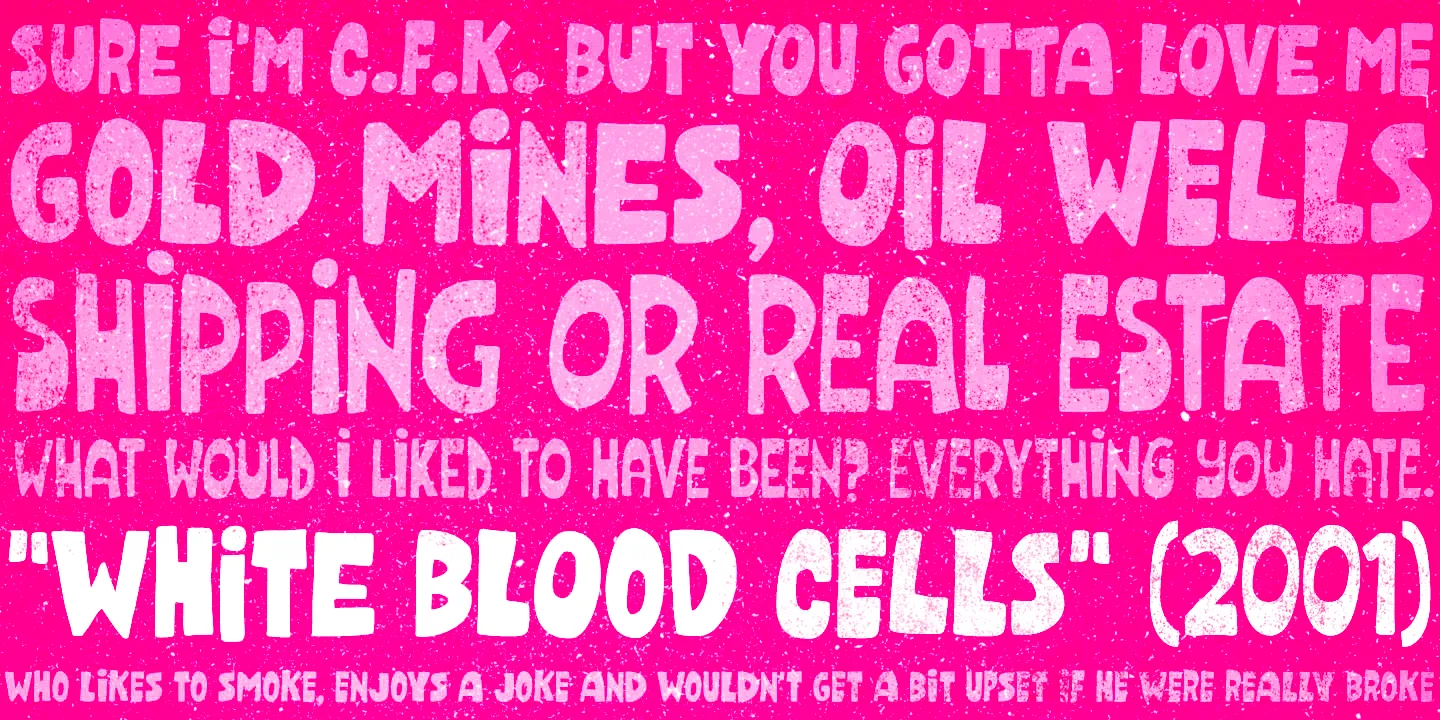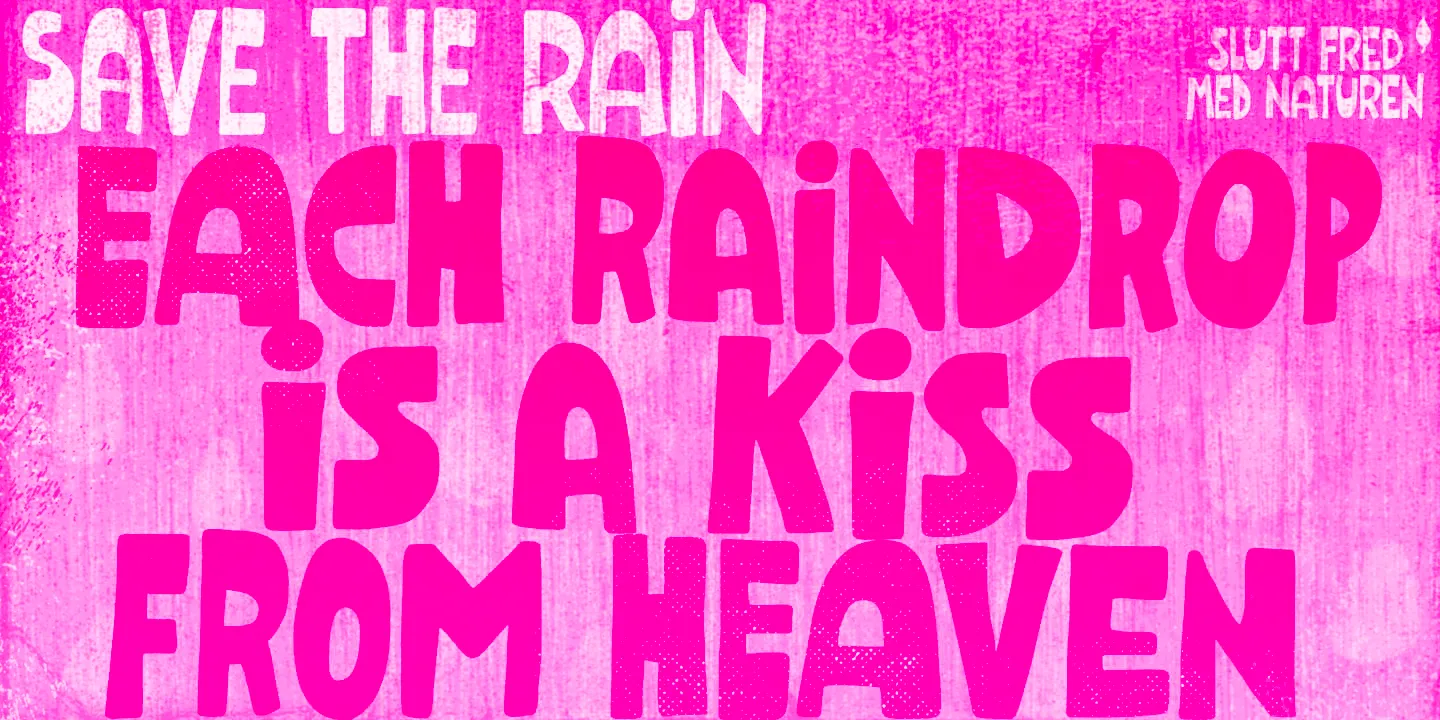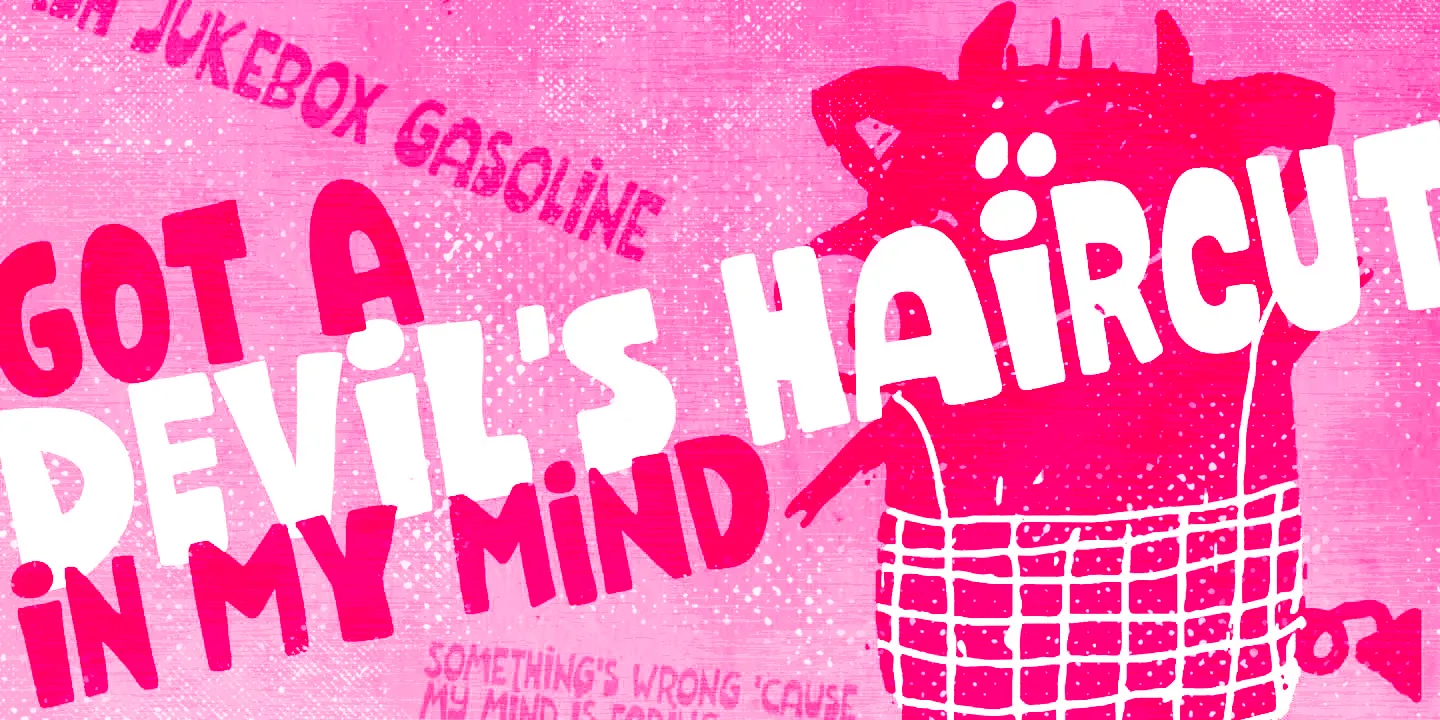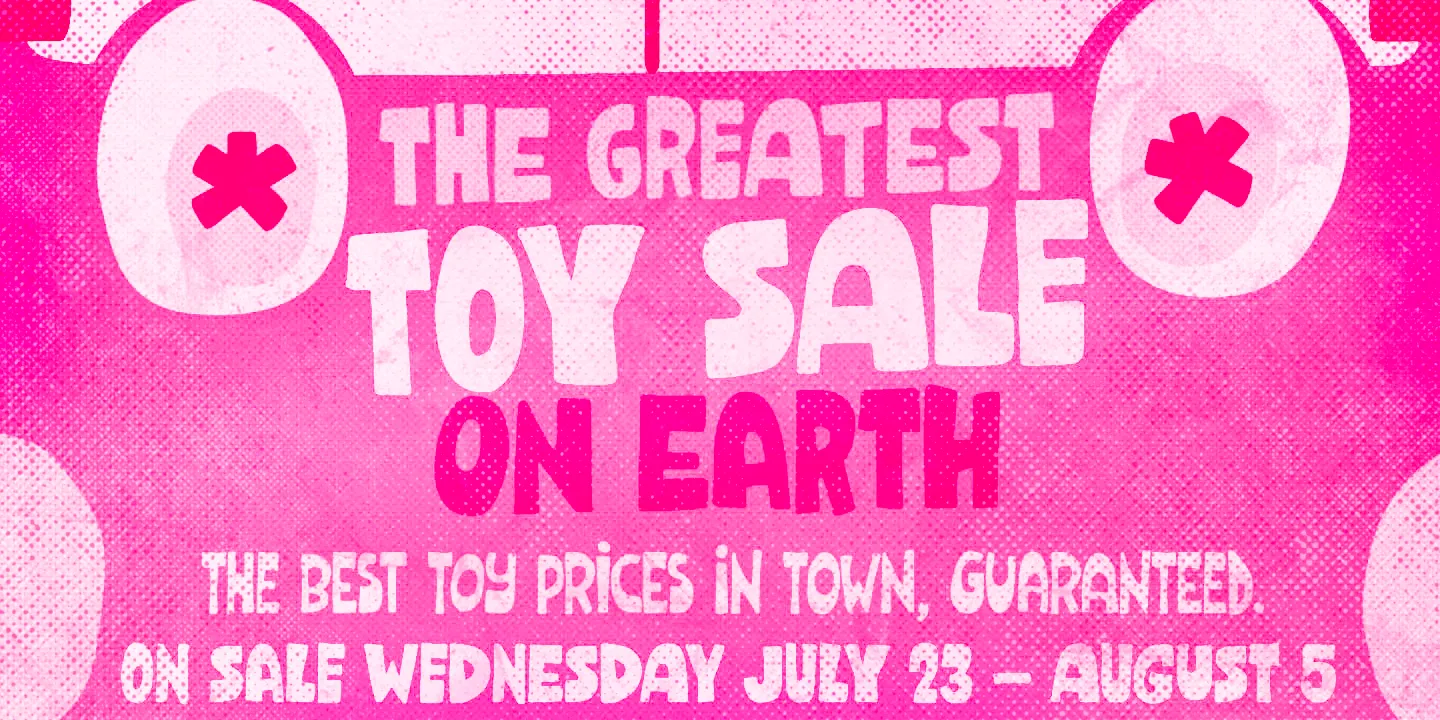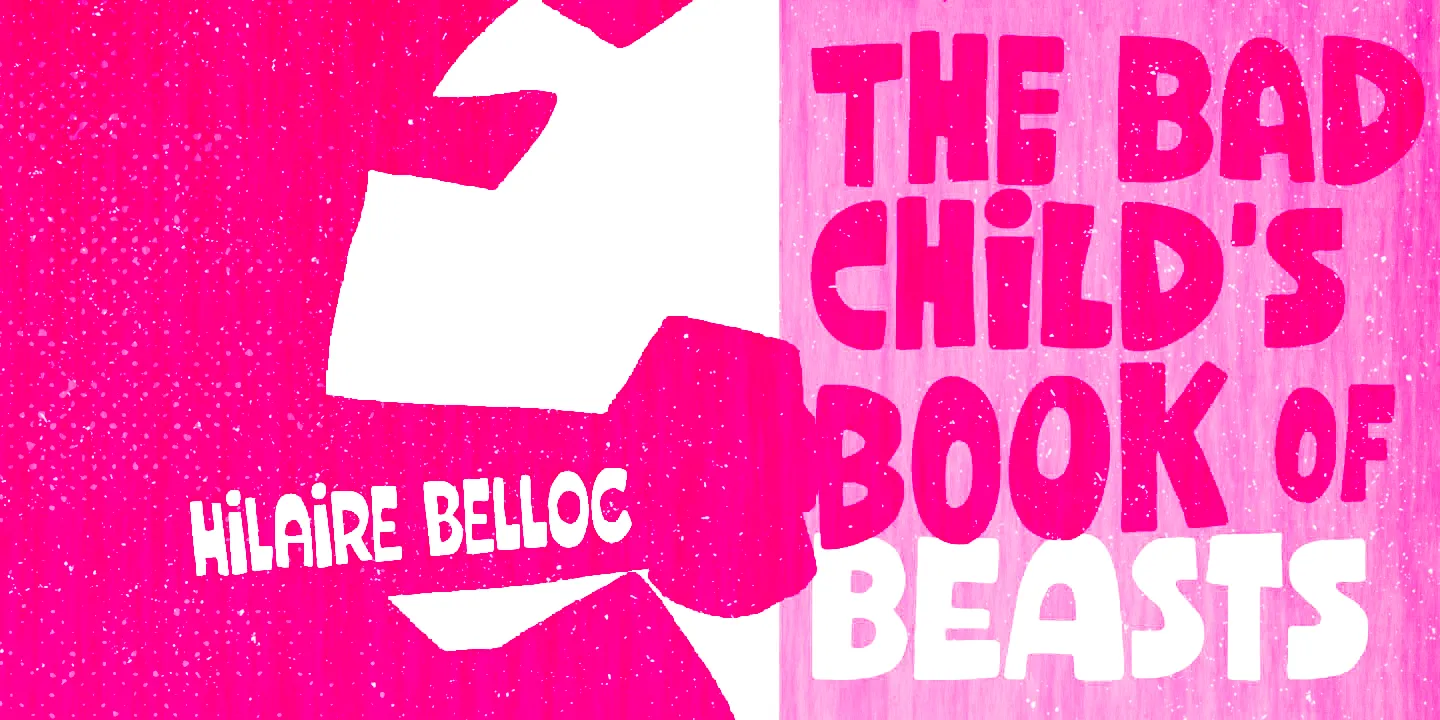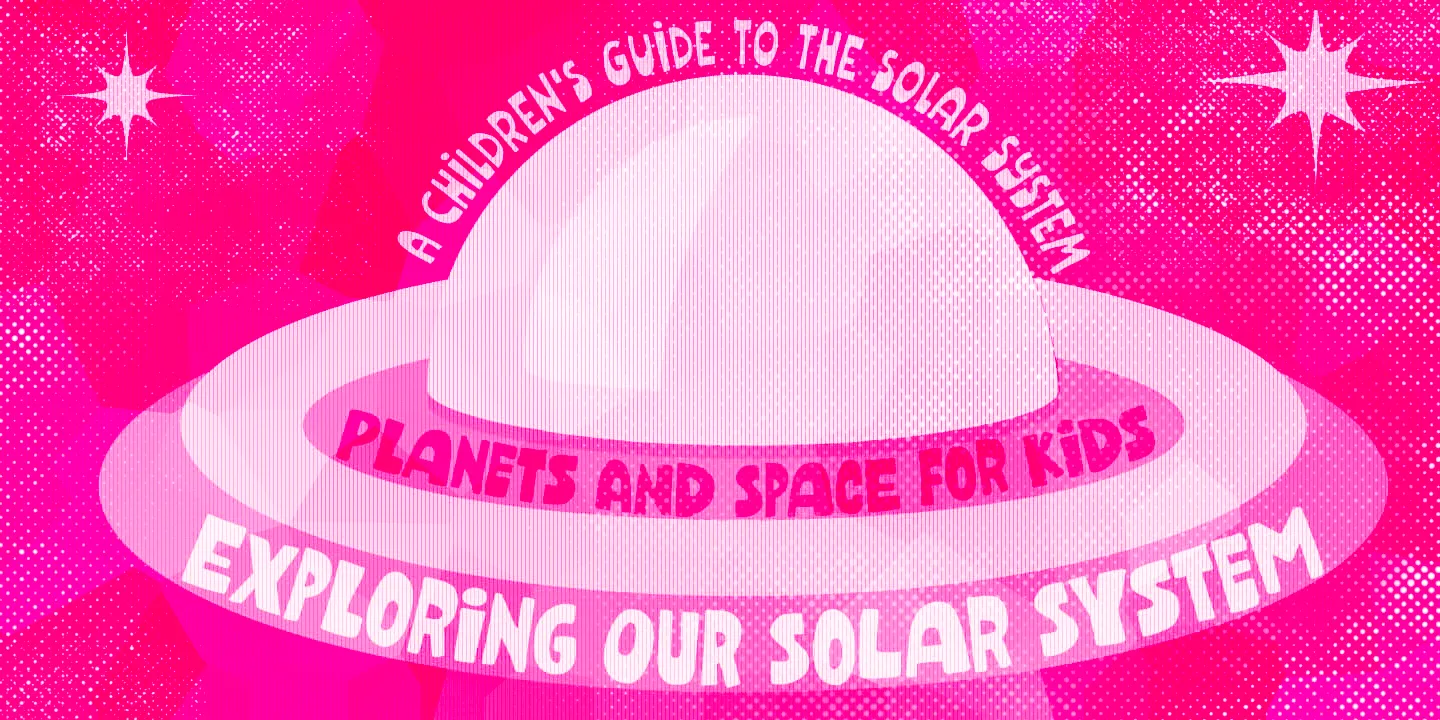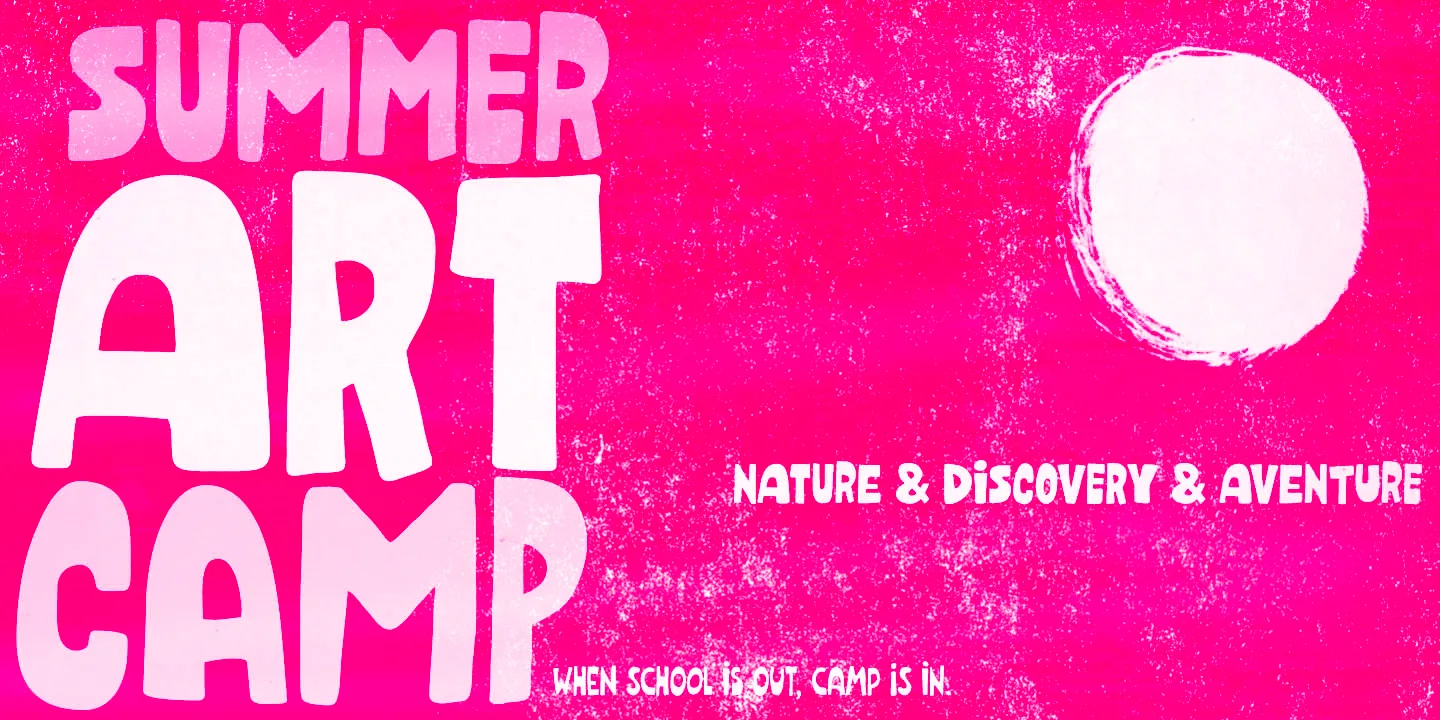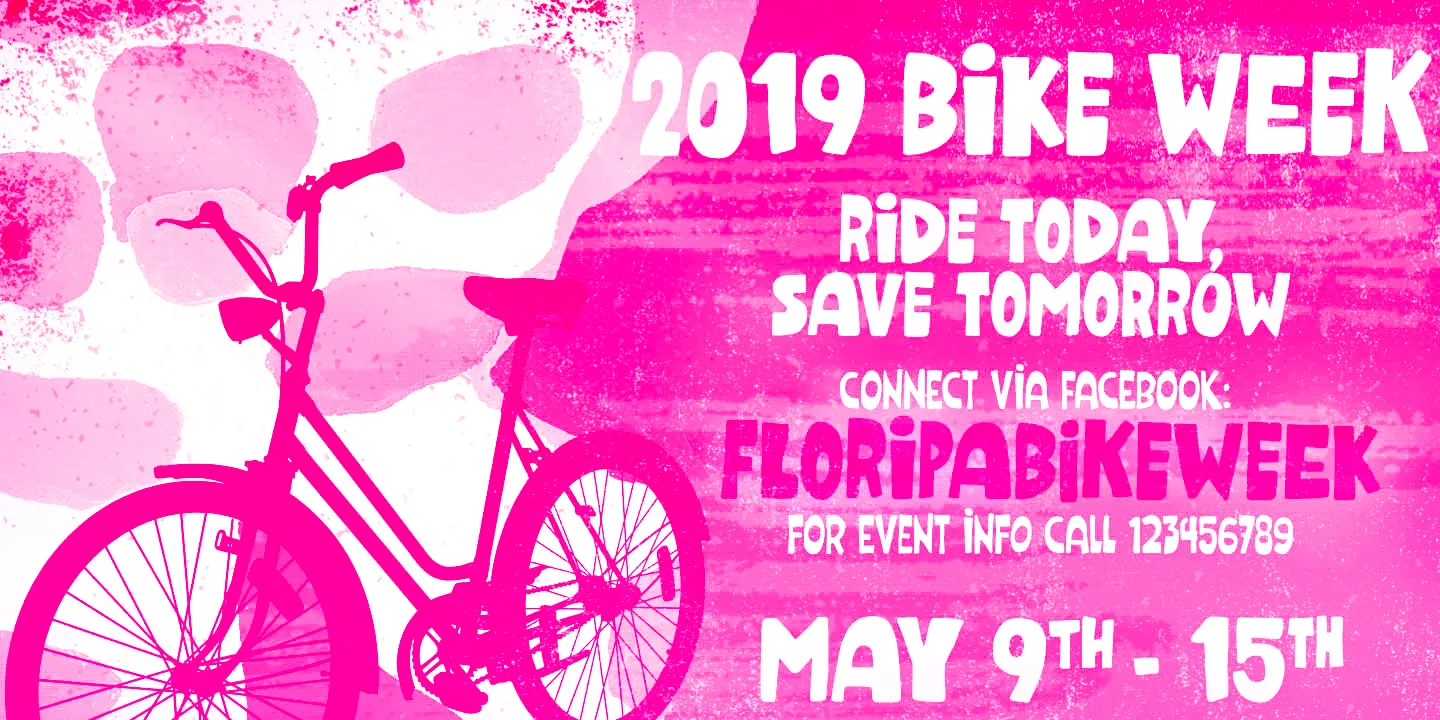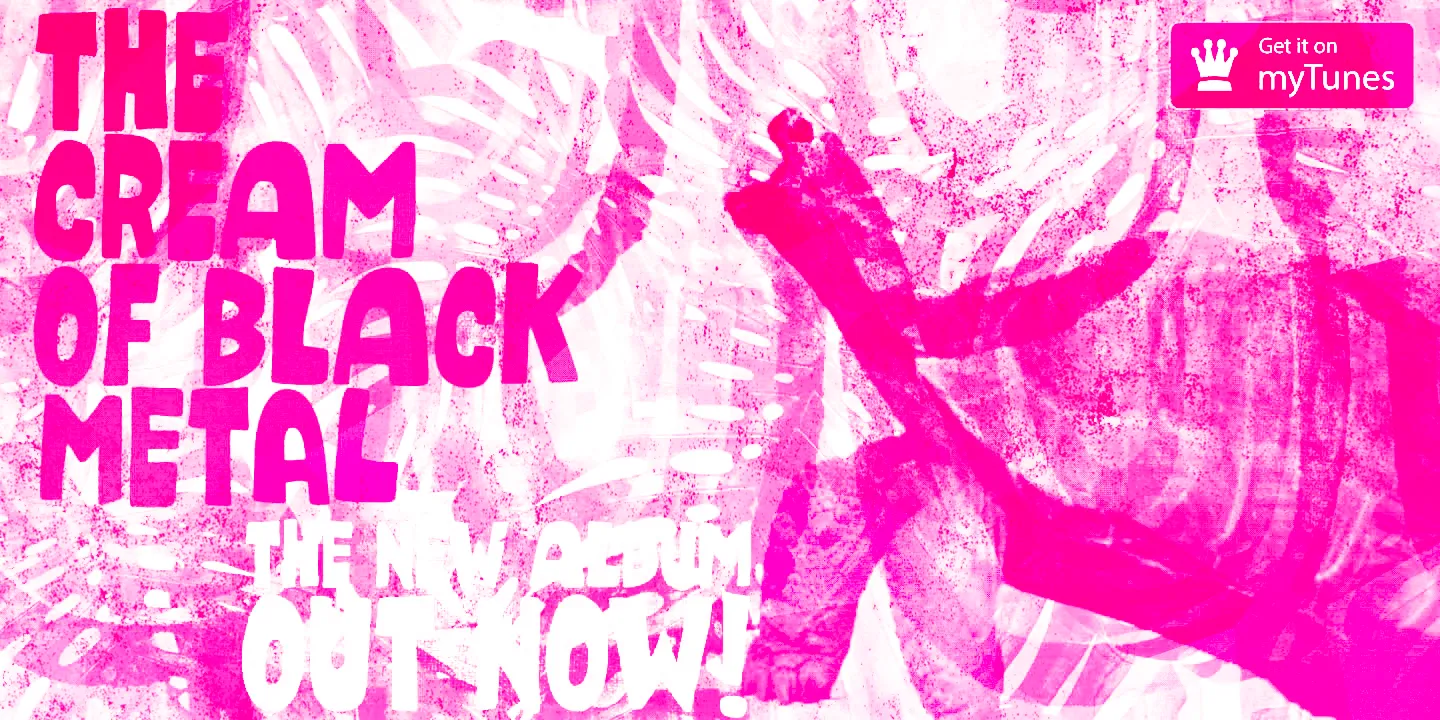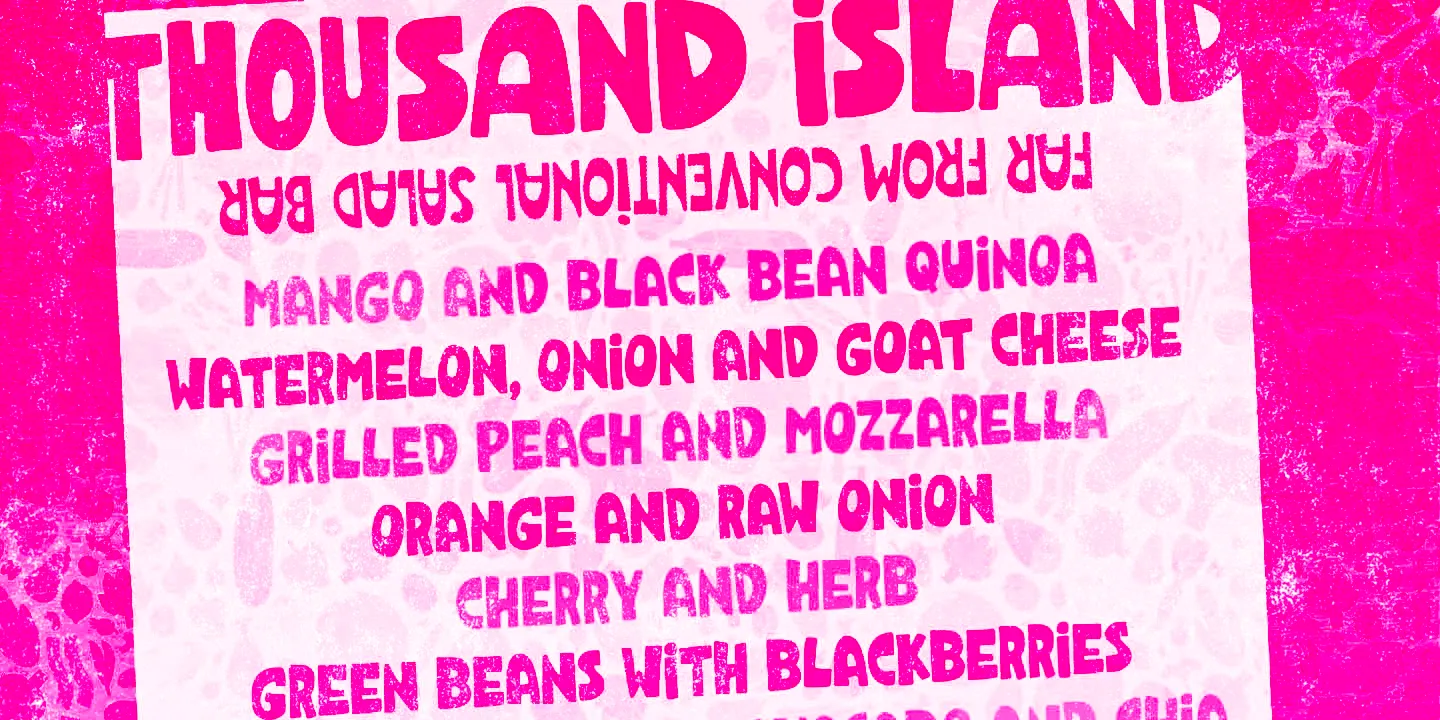
Dunkelbunt Font Family
Dunkelbunt
Dunkelbunt is a hand-lettered display typeface inspired by the works of the wildly eccentric artist, architect, and designer Friedensreich Hundertwasser. It’s an all-caps font family with two cuts for each letter to add natural variation. Loaded with imaginative energy, Dunkelbunt can be used anywhere you want a slightly quirky, spontaneous look sure to make your designs shine. Enjoy!